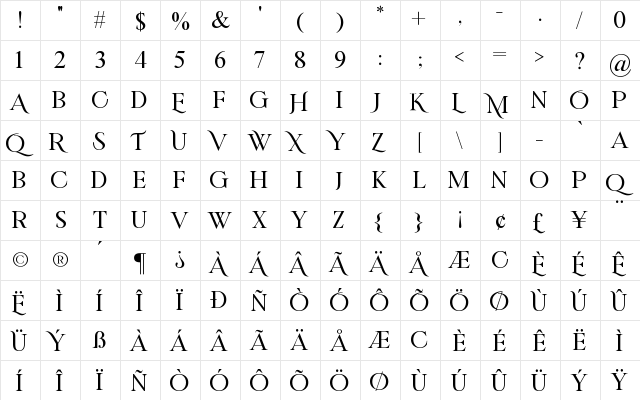
RIVERFLOWS Regular
Design Context for RIVERFLOWS Typeface
RIVERFLOWS offers clean, dependable letterforms without strong stylistic allegiance, making it a practical choice for designers who need flexibility.
Pro Tip: Use RIVERFLOWS in both headline and body roles to test its range before committing to a single application.